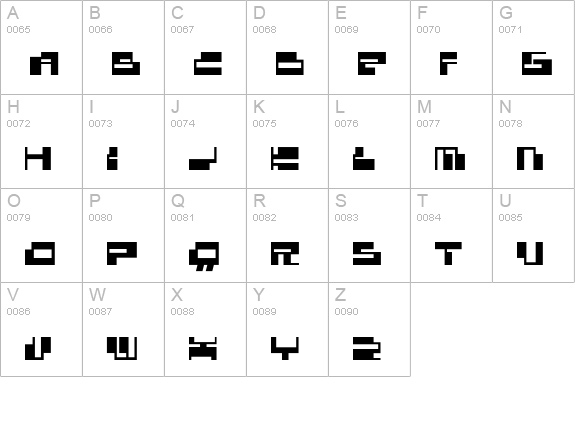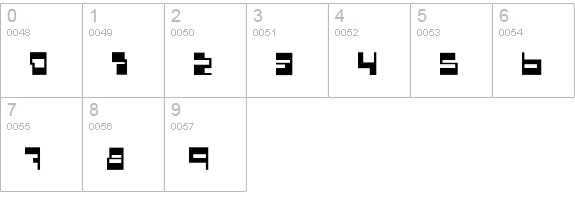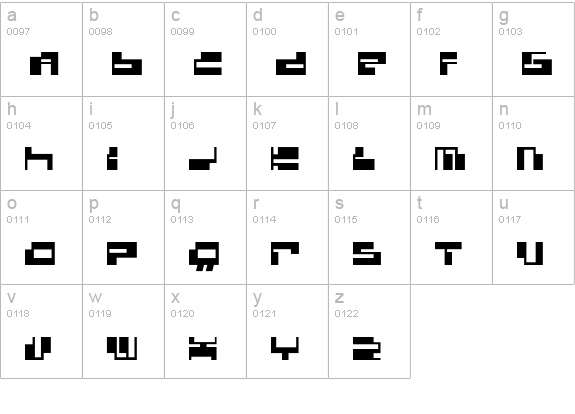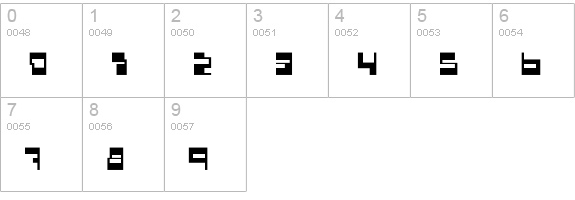
Console font is a sleek and modern typeface that is perfect for digital projects and coding. With its clean lines and easy readability, Console font is ideal for use in websites, apps, and software interfaces. This versatile font comes in a variety of weights and styles, making it suitable for a wide range of design applications. Whether you're working on a programming project or designing a tech-related website, Console font has got you covered. Best of all, Console font is completely free to download at FontsMarket.com. Simply head to the website and grab this stylish and functional font for your next project. With its professional look and user-friendly design, Console font is sure to elevate your work to the next level. Download it today and see the difference it can make in your designs!